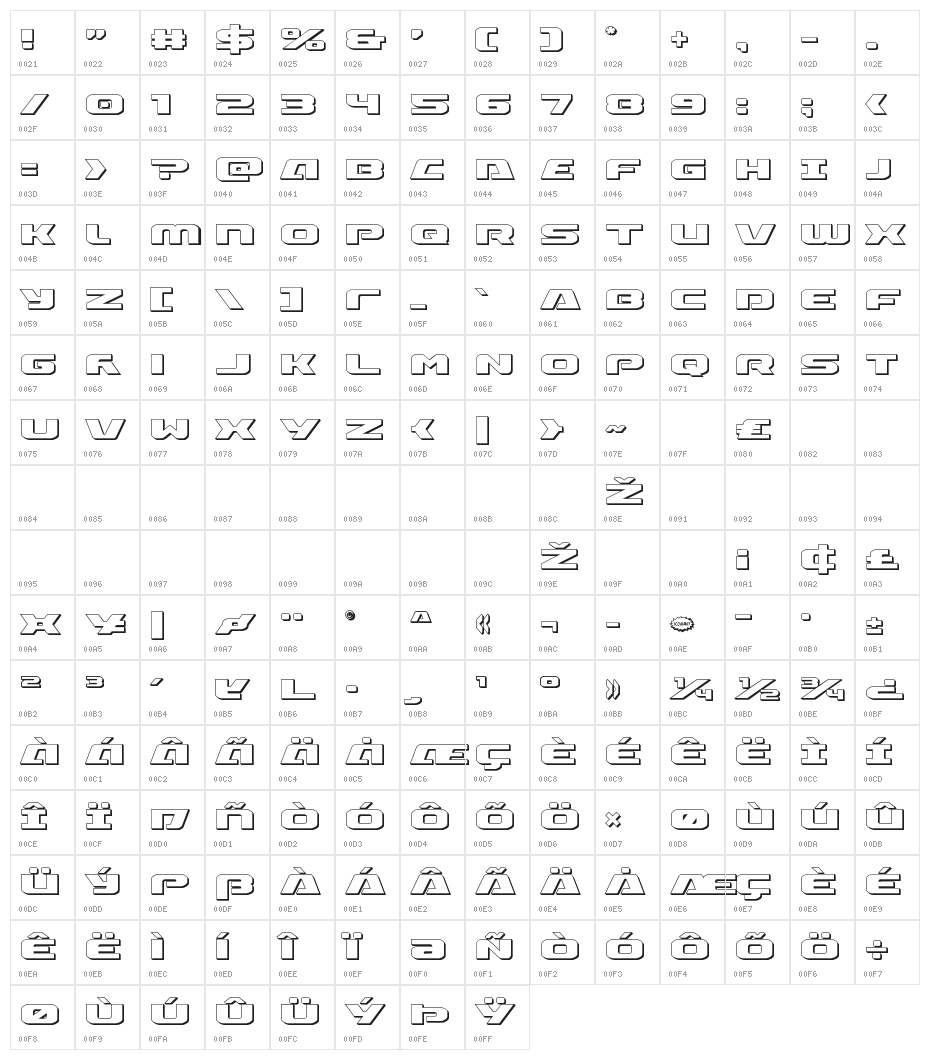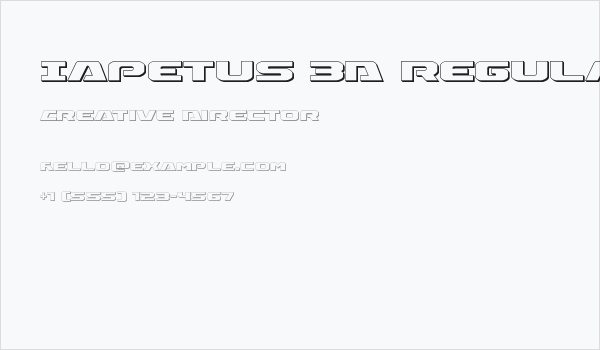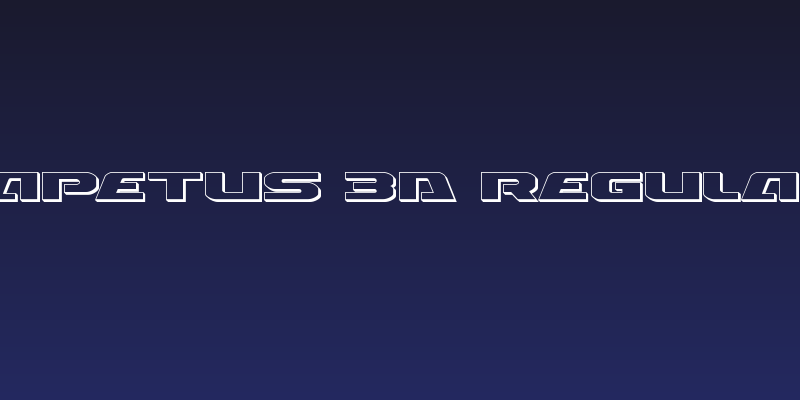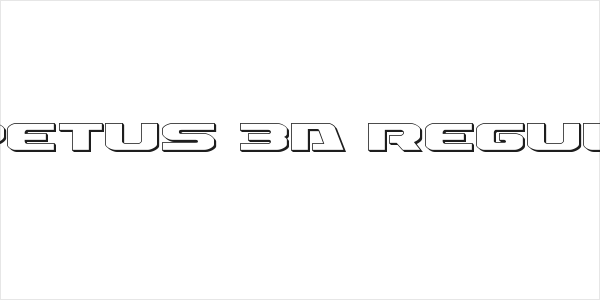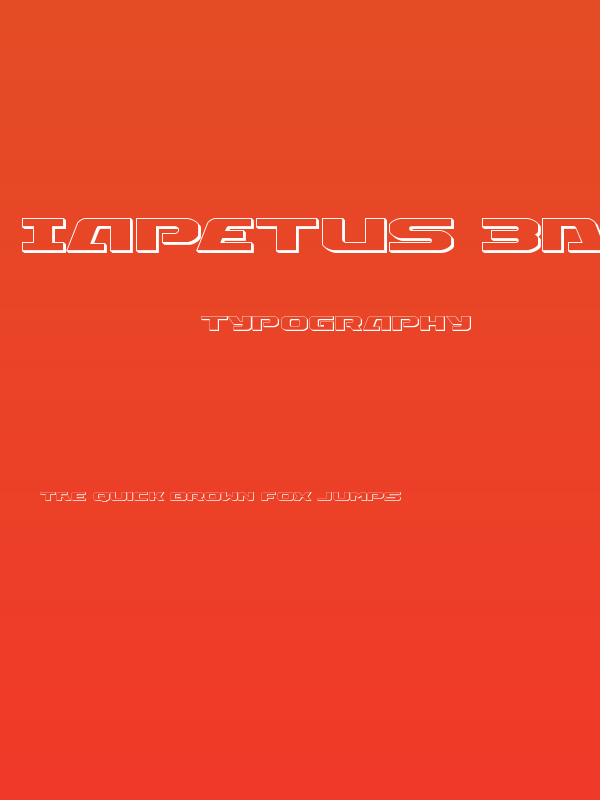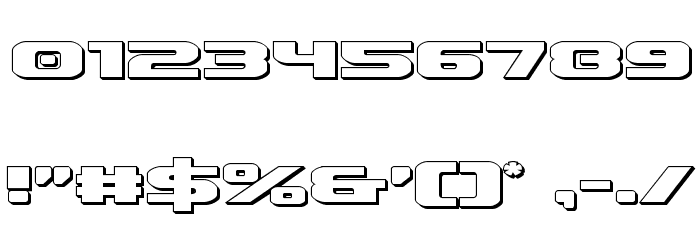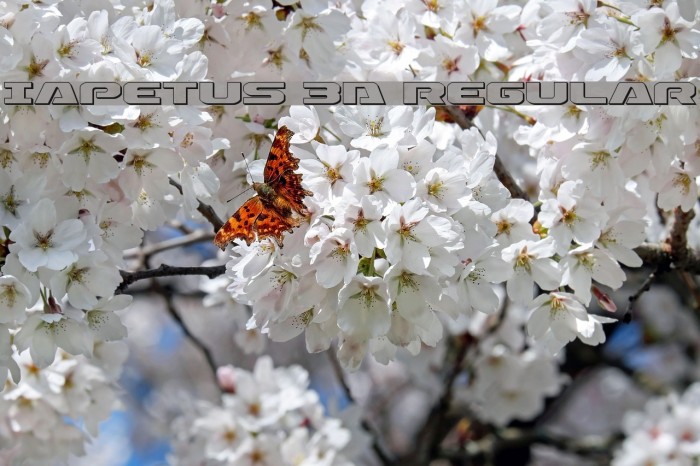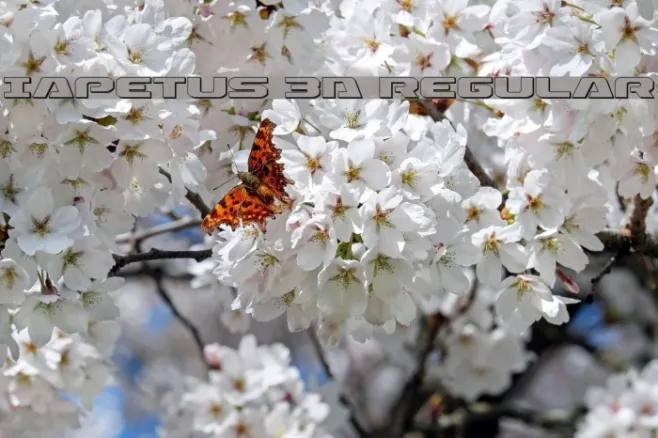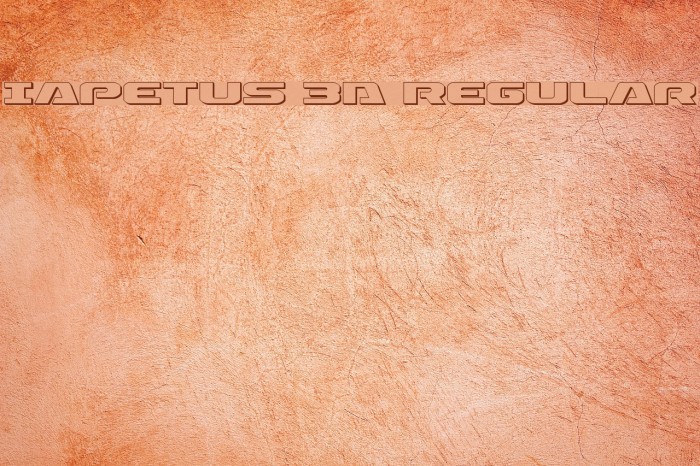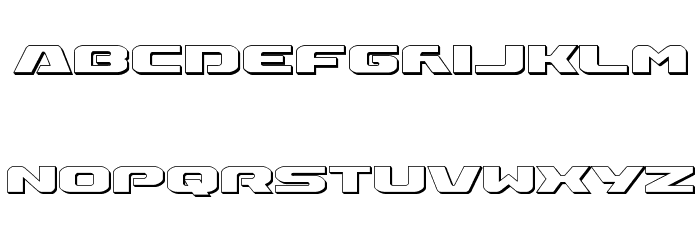
Iapetus 3D Regular Font
Iapetus 3D Regular Description
This font features a bold, three-dimensional style with a futuristic and geometric appearance. The characters are outlined, creating a hollow effect that enhances the 3D illusion. Each letter is constructed with sharp angles and clean lines, giving it a modern and tech-inspired look. The uppercase and lowercase letters maintain a consistent style, while the numerals and special characters complement the overall design. The font's unique structure makes it stand out, ideal for projects that require a strong visual impact.
| Proposed Projects | Ideal for sci-fi themed posters, video game titles, technology branding, and futuristic event invitations. |